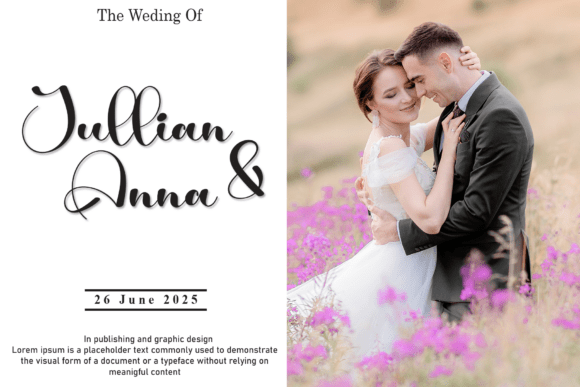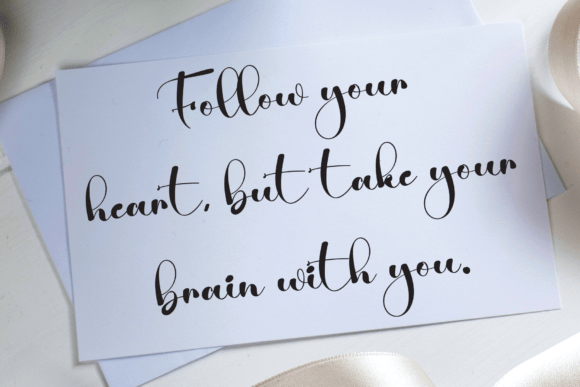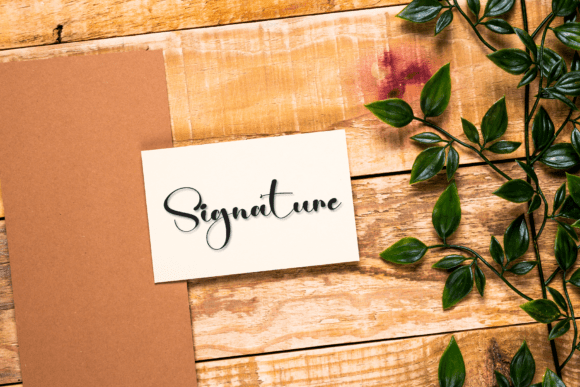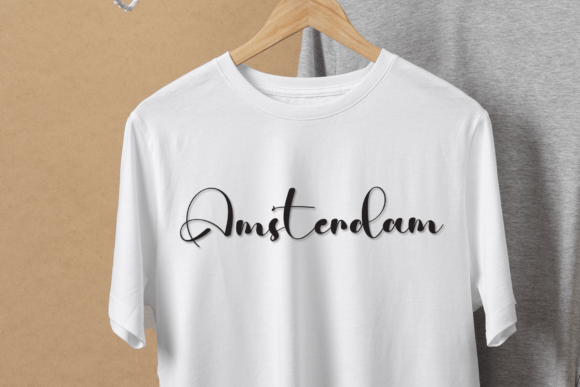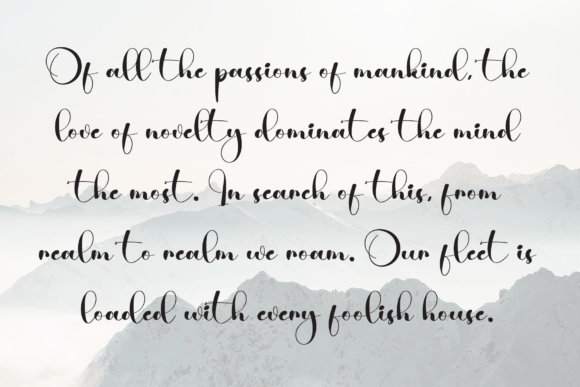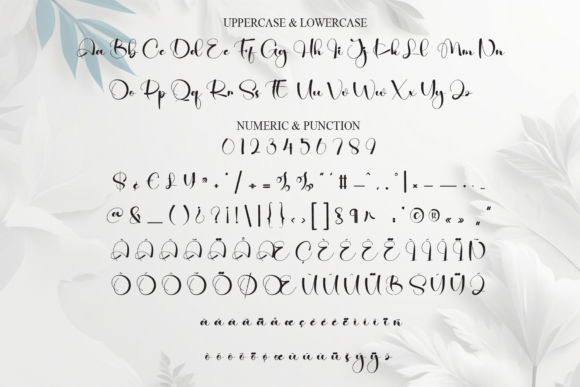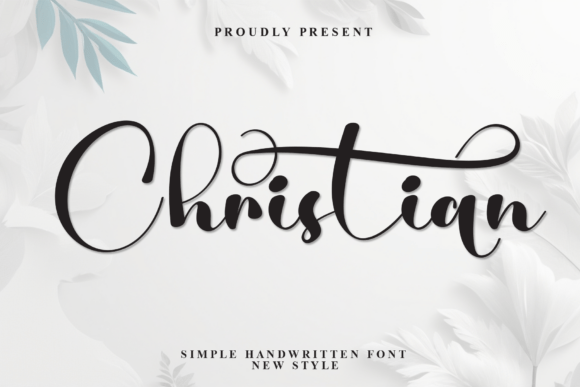
Discover the Elegance of Christian Font: A Delicate Handwritten Script
Are you a designer or crafter looking for a font that exudes romance, simplicity, and elegance? Look no further than Christian Font, a beautiful handwritten script that is perfect for a variety of design projects. In this article, we’ll explore the features and benefits of Christian Font, and show you how to make the most of this stunning typeface.
What is Christian Font?
Christian Font is a delicate and graceful handwritten script that is characterized by its elegant swashes and soft flow. This font is designed to evoke a sense of romance and simplicity, making it perfect for designs that require a touch of sophistication and whimsy. With its flowing lines and gentle curves, Christian Font is sure to add a touch of elegance to any design project.
Features of Christian Font
So, what makes Christian Font so special? Here are just a few of its key features:
- Elegant swashes: Christian Font features beautiful swashes that add a touch of drama and flair to any design.
- Soft flow: The font’s soft flow makes it perfect for designs that require a sense of movement and fluidity.
- Handwritten script: Christian Font is a handwritten script, giving it a personal and intimate feel that’s perfect for wedding invitations, faith-based designs, and more.
- Romantic and simple: This font perfectly balances romance and simplicity, making it ideal for designs that require a touch of elegance and whimsy.
Uses for Christian Font
So, what can you use Christian Font for? The possibilities are endless! Here are a few ideas to get you started:
- Wedding invitations: Christian Font is perfect for wedding invitations, adding a touch of romance and elegance to your designs.
- Faith-based designs: This font is also great for faith-based designs, such as church bulletins, prayer cards, and more.
- Branding: Christian Font can be used for branding projects, such as logos, business cards, and letterheads.
- Quote graphics: This font is perfect for creating quote graphics, adding a touch of elegance and sophistication to your designs.
Tips for Using Christian Font
Here are a few tips for using Christian Font in your designs:
- Use it sparingly: Christian Font is a delicate font, so use it sparingly to avoid overwhelming your design.
- Pair it with other fonts: This font pairs well with other fonts, such as sans-serif fonts, to create a beautiful contrast.
- Experiment with swashes: Don’t be afraid to experiment with the font’s swashes to add a touch of drama and flair to your design.
- Use it in digital and print designs: Christian Font can be used in both digital and print designs, making it a versatile font for any project.
In conclusion, Christian Font is a beautiful handwritten script that is perfect for designers and crafters looking for a font that exudes romance, simplicity, and elegance. With its elegant swashes, soft flow, and handwritten script, this font is sure to add a touch of sophistication and whimsy to any design project. Whether you’re creating wedding invitations, faith-based designs, branding, or quote graphics, Christian Font is a great choice. So why not give it a try and see the difference it can make in your designs?